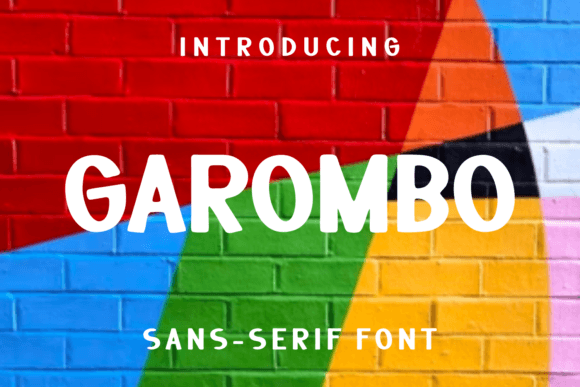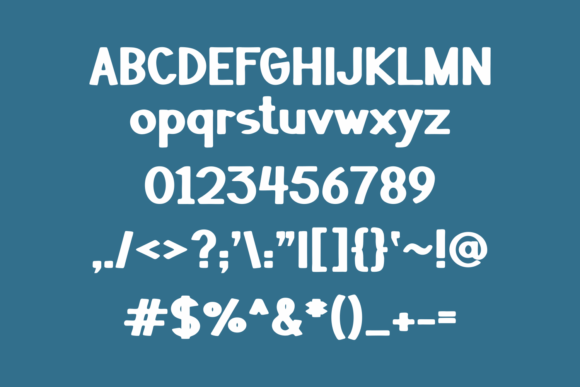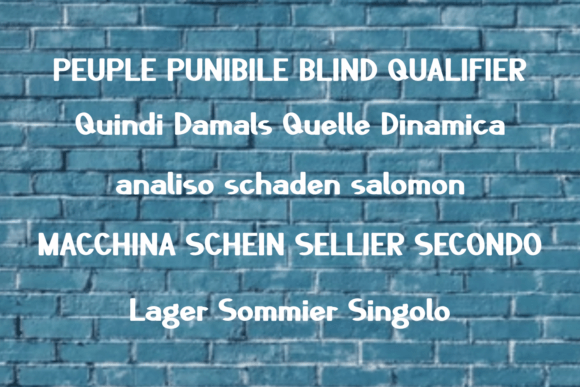
Discover the Unique Charm of Garombo Font: Elevate Your Designs with this Stunning Display Font
In the world of typography, fonts play a crucial role in conveying messages, expressing emotions, and creating visual identities. For designers and crafters, finding the perfect font can be a daunting task, especially when looking for something that stands out from the crowd. This is where Garombo Font comes into play – a cool and unique display font that is about to become your new favorite asset.
What Makes Garombo Font Special?
Garombo is a meticulously crafted and highly detailed display font that is designed to make a statement. Its unique charm lies in its ability to add a touch of sophistication and elegance to any design project. Whether you’re working on a logo, a poster, a website, or any other creative endeavor, Garombo Font is sure to enhance your creation and make it stand out.
One of the key features that sets Garombo apart from other fonts is its neat and clean design. The font’s carefully crafted lines and curves create a sense of harmony and balance, making it perfect for use in a wide range of applications. From bold headlines to subtle text, Garombo Font adapts seamlessly to any design requirement.
Why Choose Garombo Font?
So, what makes Garombo Font an attractive choice for designers and crafters? Here are just a few reasons why this font is worth adding to your library:
- Versatility: Garombo Font is incredibly versatile, making it suitable for use in a variety of design projects, from print materials to digital applications.
- Uniqueness: With its distinctive design, Garombo Font is sure to set your creations apart from the rest.
- Elegance: The font’s sophisticated and elegant design makes it perfect for use in high-end branding, luxury packaging, and other premium applications.
- Readability: Despite its unique design, Garombo Font remains highly readable, even at smaller sizes.
How to Use Garombo Font in Your Designs
Now that you’re convinced of Garombo Font’s awesomeness, let’s talk about how to incorporate it into your designs. Here are a few tips to get you started:
- Headlines: Use Garombo Font as a headline font to grab attention and create a lasting impression.
- Logos: Create a unique and memorable logo by pairing Garombo Font with simple shapes and graphics.
- Posters: Add a touch of elegance to your posters by using Garombo Font for titles and headings.
- Web Design: Use Garombo Font as a display font on your website to create a stunning first impression.
In conclusion, Garombo Font is an exceptional display font that is sure to elevate your designs and take your creativity to the next level. Its unique charm, versatility, and elegance make it an attractive choice for designers and crafters looking to add a touch of sophistication to their work. Whether you’re working on a personal project or a client’s brief, Garombo Font is an excellent addition to your font library.